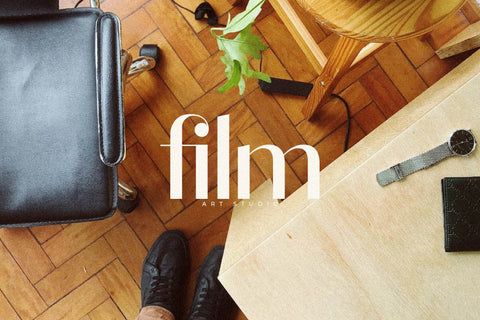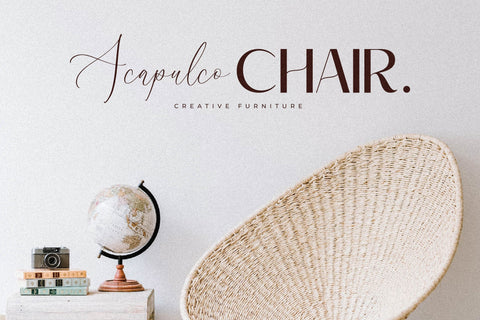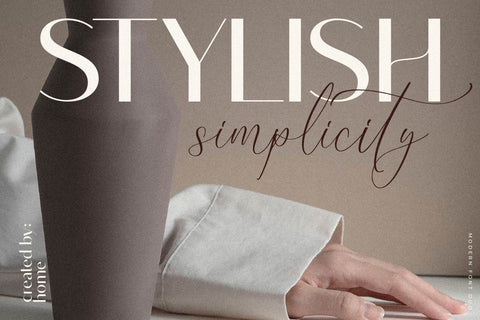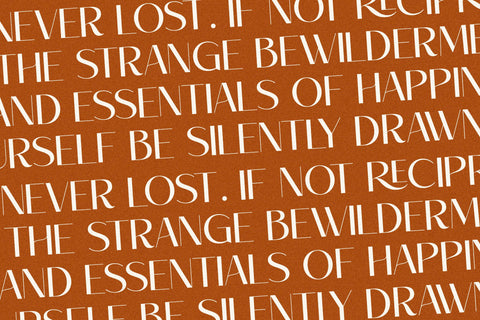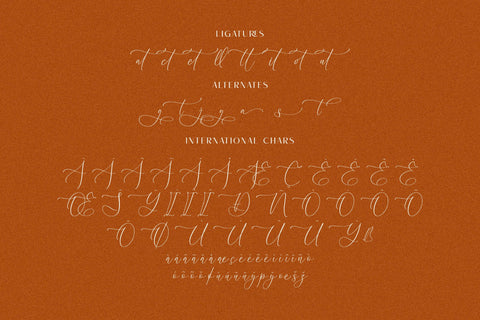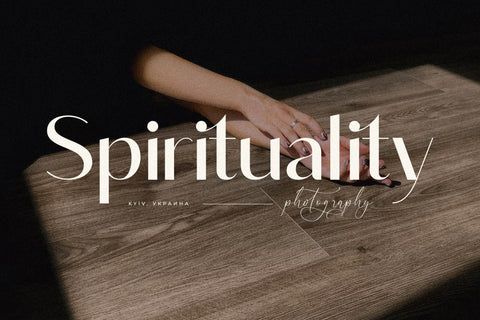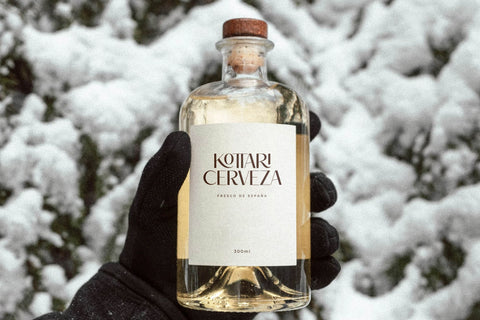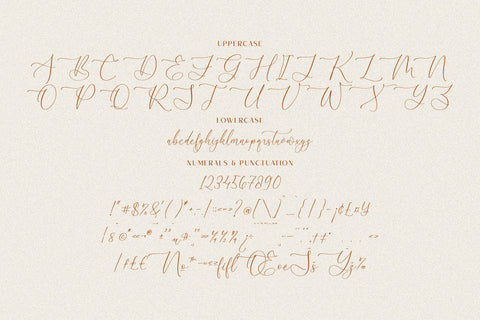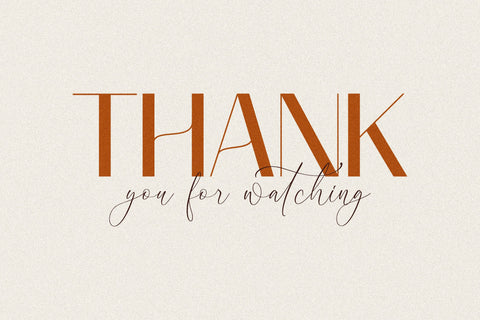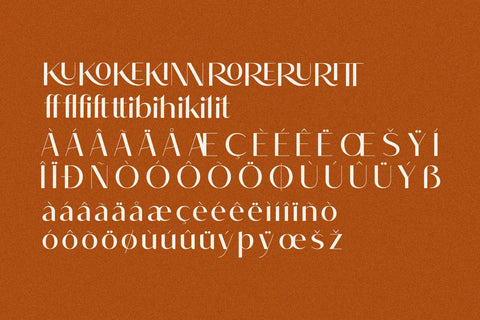
ROBIMA MERTTHA FONT DUO
Proudly present ROBIMA MERTTHA FONT DUO , created by Storytype,
A serif and script typeface that has own unique style & modern look.